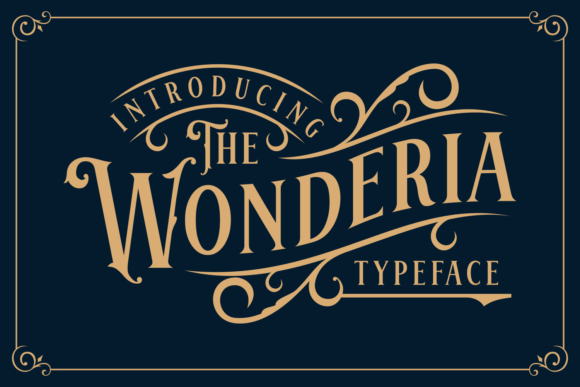
Introducing Wonderia, an enchanting display font that will cast a spell of visual delight over your designs. Each character exudes a playful charm, dancing across the page like a mischievous sprite. With its striking look and superior readability, Wonderia is the perfect choice for creating poster headings that demand attention.
Immerse yourself in the world of Wonderia, where imagination runs wild. Unleash your creativity and let the font's captivating spirit guide you to design masterpieces. Wonderia is not just a font; it's a portal to a realm where whimsicality meets elegance.
Picture this: a movie poster adorned with Wonderia's captivating curves, drawing moviegoers into a world of cinematic magic. Or, envision a social media post that instantly captivates followers with its vibrant headlines, enticing them to engage with your content. Wonderia has the power to transform ordinary words into extraordinary statements, leaving a lasting impression on your audience.
But Wonderia is more than just a pretty face. It's a versatile font that effortlessly adapts to any design concept. Whether you're crafting a whimsical children's book, designing a playful brand identity, or creating an eye-catching website, Wonderia will effortlessly elevate your designs to new heights of creativity.
In the realm of design, Wonderia is a master storyteller, weaving tales of enchantment and wonder through its enchanting letterforms. Its beautiful swashes and design elements are like magical tools, allowing you to add a touch of whimsy and intrigue to your projects.
So, dear designers and creative minds, embrace the allure of Wonderia and let your designs blossom with its magical touch. Step into a world where imagination reigns supreme, and experience the transformative power of Wonderia.